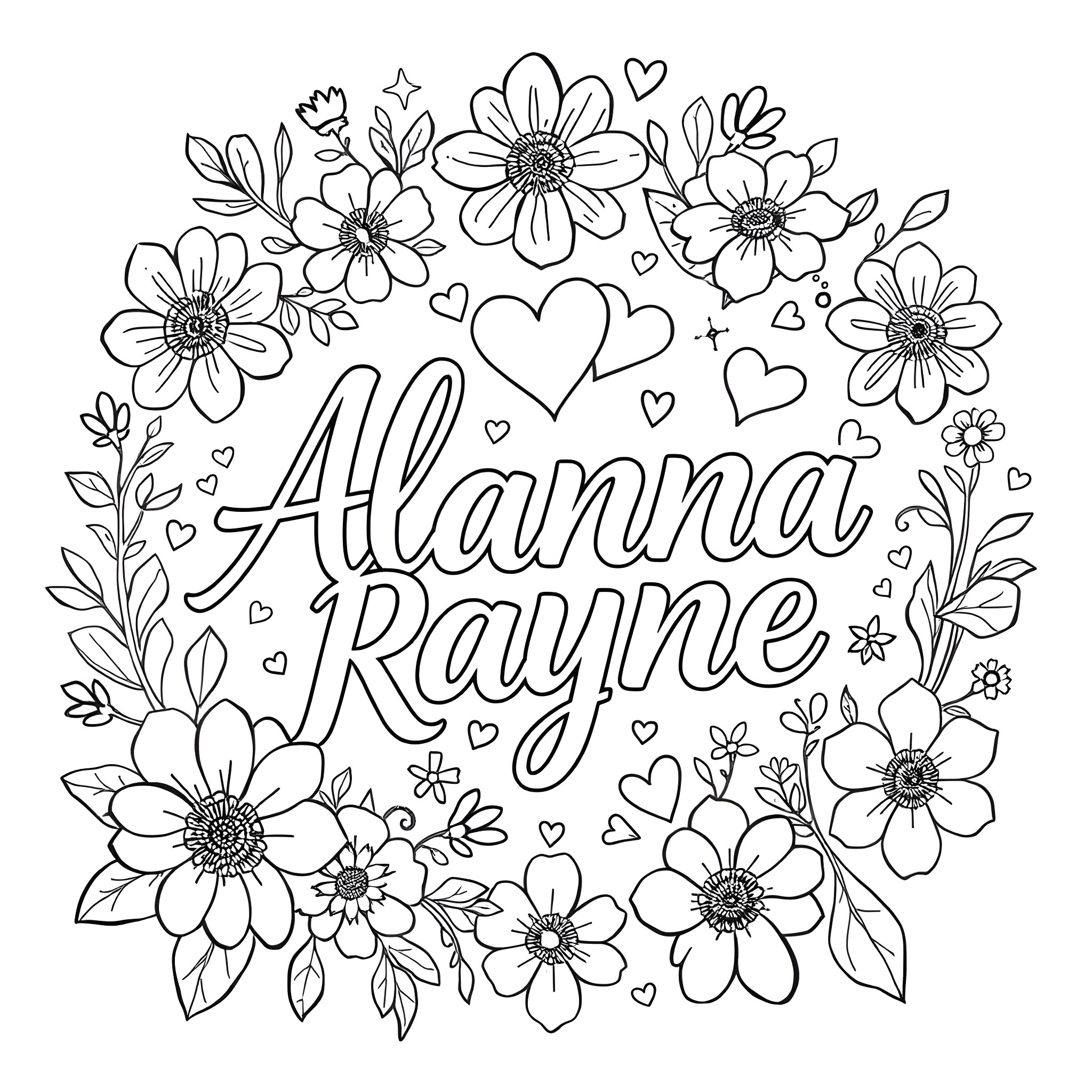
Mastering the art of writing in cursive can be a rewarding experience, especially when it comes to writing the word "Senior" in cursive. This elegant and flowing script has a timeless appeal that adds a touch of sophistication to any written work. Whether you are a student learning cursive for the first time or an adult looking to refine your skills, understanding how to write "Senior" in cursive can be a valuable addition to your repertoire.
Understanding Cursive Writing
Cursive writing is a style of penmanship in which the letters are connected in a flowing manner. It is designed to be both efficient and aesthetically pleasing. The origins of cursive writing can be traced back to ancient times, but it gained widespread use in the 17th century. Today, cursive is often taught in schools as a way to improve handwriting skills and enhance fine motor coordination.
The Importance of Learning Cursive
Learning to write in cursive offers several benefits:
• Improved Handwriting: Cursive writing helps in developing a neat and legible handwriting style.
• Enhanced Fine Motor Skills: The continuous flow of cursive writing aids in improving fine motor skills and hand-eye coordination.
• Increased Speed: Once mastered, cursive writing can be faster than printing, making it ideal for taking notes or writing long passages.
• Aesthetic Appeal: Cursive writing has a timeless elegance that can make any document look more polished and professional.
Writing “Senior” in Cursive
Writing “Senior” in cursive involves understanding the basic strokes and connections between the letters. Here is a step-by-step guide to help you master this word:
Step 1: Understand the Basic Strokes
Before you start writing “Senior” in cursive, it’s essential to familiarize yourself with the basic strokes used in cursive writing. These include:
• Oval loops
• Underturns
• Overturns
• Connecting strokes
Step 2: Practice Individual Letters
Start by practicing the individual letters that make up the word “Senior.” Each letter has a specific cursive form:
• S: Begin with a small loop at the top, then curve down and to the right, forming an oval shape. End with a small tail that curves back up.
• e: Start with a small loop at the top, then curve down and to the left, forming an oval shape. End with a small tail that curves back up.
• n: Begin with a small loop at the top, then curve down and to the right, forming an oval shape. End with a small tail that curves back up.
• i: Start with a small loop at the top, then curve down and to the left, forming an oval shape. End with a small tail that curves back up.
• o: Begin with a small loop at the top, then curve down and to the right, forming an oval shape. End with a small tail that curves back up.
• r: Start with a small loop at the top, then curve down and to the right, forming an oval shape. End with a small tail that curves back up.
Step 3: Connect the Letters
Once you are comfortable with the individual letters, practice connecting them to form the word “Senior.” The key is to ensure that the letters flow smoothly into one another. Here is a breakdown of the connections:
• Start with the letter “S” and connect it to the letter “e” by curving the tail of the “S” into the loop of the “e.”
• Connect the “e” to the “n” by curving the tail of the “e” into the loop of the “n.”
• Connect the “n” to the “i” by curving the tail of the “n” into the loop of the “i.”
• Connect the “i” to the “o” by curving the tail of the “i” into the loop of the “o.”
• Connect the “o” to the “r” by curving the tail of the “o” into the loop of the “r.”
Step 4: Practice Regularly
Like any skill, writing “Senior” in cursive requires regular practice. Set aside time each day to practice the word, focusing on maintaining a consistent flow and ensuring that the letters are connected smoothly. Over time, you will become more comfortable with the cursive form of the word.
📝 Note: Consistency is key when learning cursive. Practice regularly to improve your skills and achieve a smooth, flowing handwriting style.
Common Mistakes to Avoid
When learning to write “Senior” in cursive, there are several common mistakes to avoid:
• Inconsistent Letter Size: Ensure that all letters are of a consistent size to maintain a uniform appearance.
• Poor Letter Connections: Make sure that the letters are connected smoothly to achieve a flowing cursive style.
• Incorrect Strokes: Pay attention to the specific strokes required for each letter to ensure accuracy.
• Lack of Practice: Regular practice is essential for mastering cursive writing. Avoid skipping practice sessions.
Tips for Improving Cursive Writing
Here are some tips to help you improve your cursive writing skills: